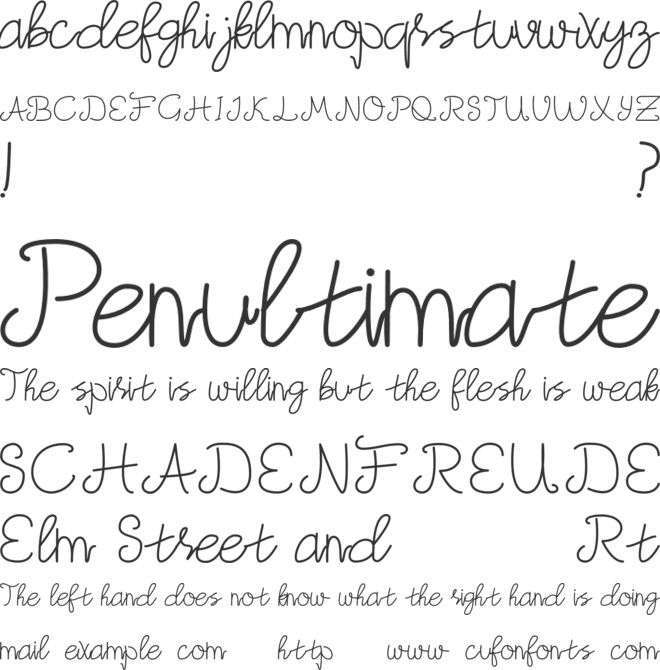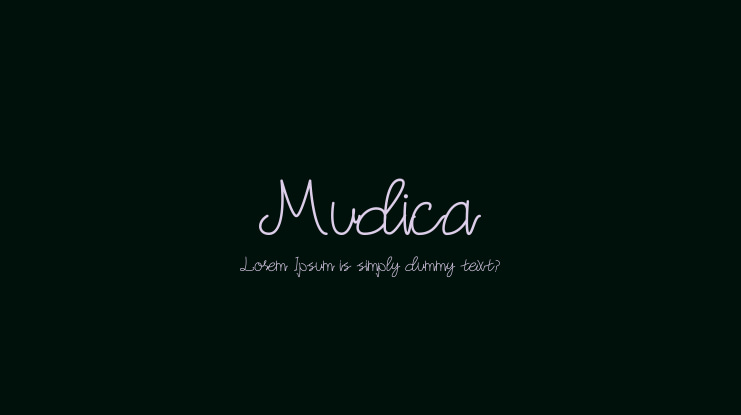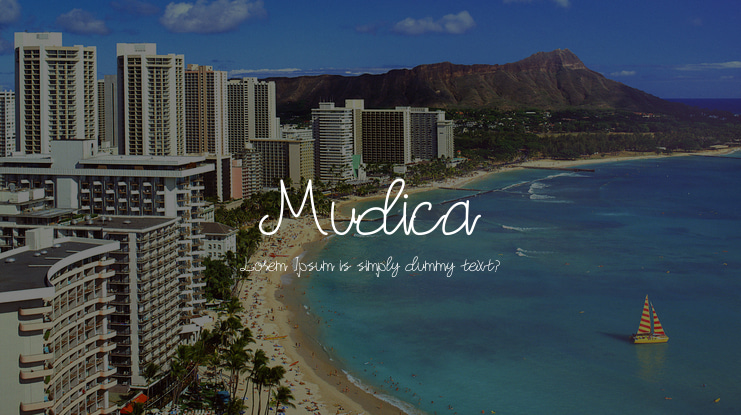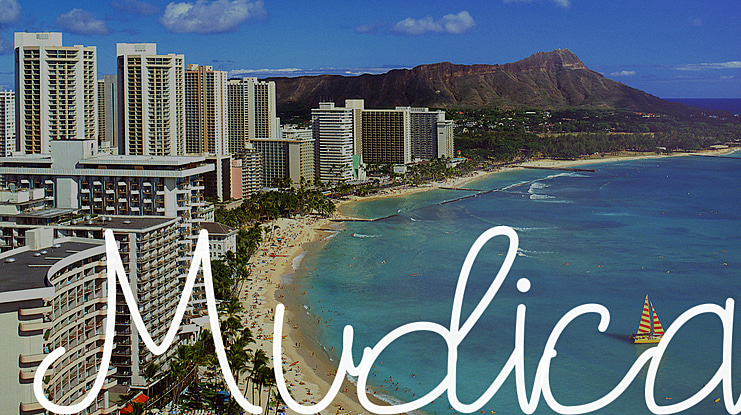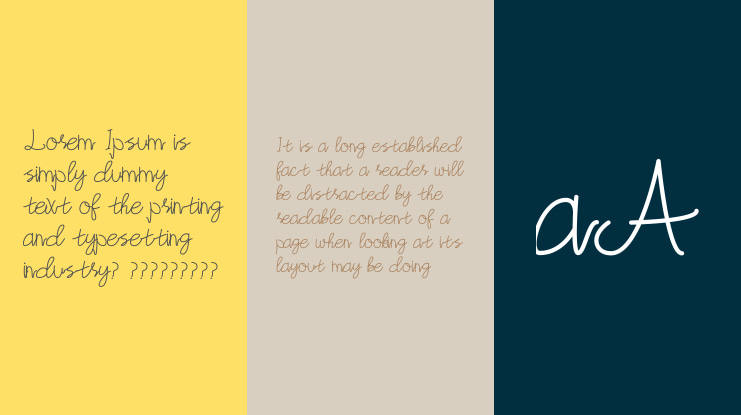
Mudica Font
Mudica is a handwriting font with monoline style. It will perfectly fit for any of your personal or commercial branding projects, or just for fun stuff.